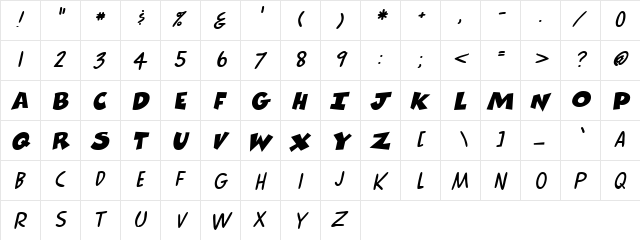
League Oblique
Design Context for League Typeface
League is a composed and adaptable typeface that performs quietly and consistently across a wide range of design contexts. The slanted form adds forward momentum and visual energy.
Pro Tip: Try League for annotation and caption copy alongside an upright companion — the contrast in angle creates a dynamic but ordered typographic system.